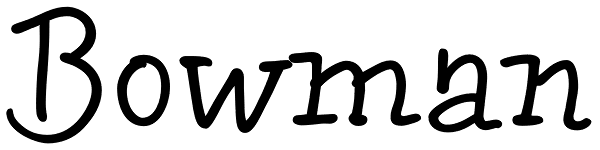
Bowman
Bowman is an informal slab-serif face written by hand with a marker. Its live and playful nature makes it suitable for comic books, illustrations, informal advertising and package design. Designer Alexandra Korolkova. Released by ParaType in 2010.